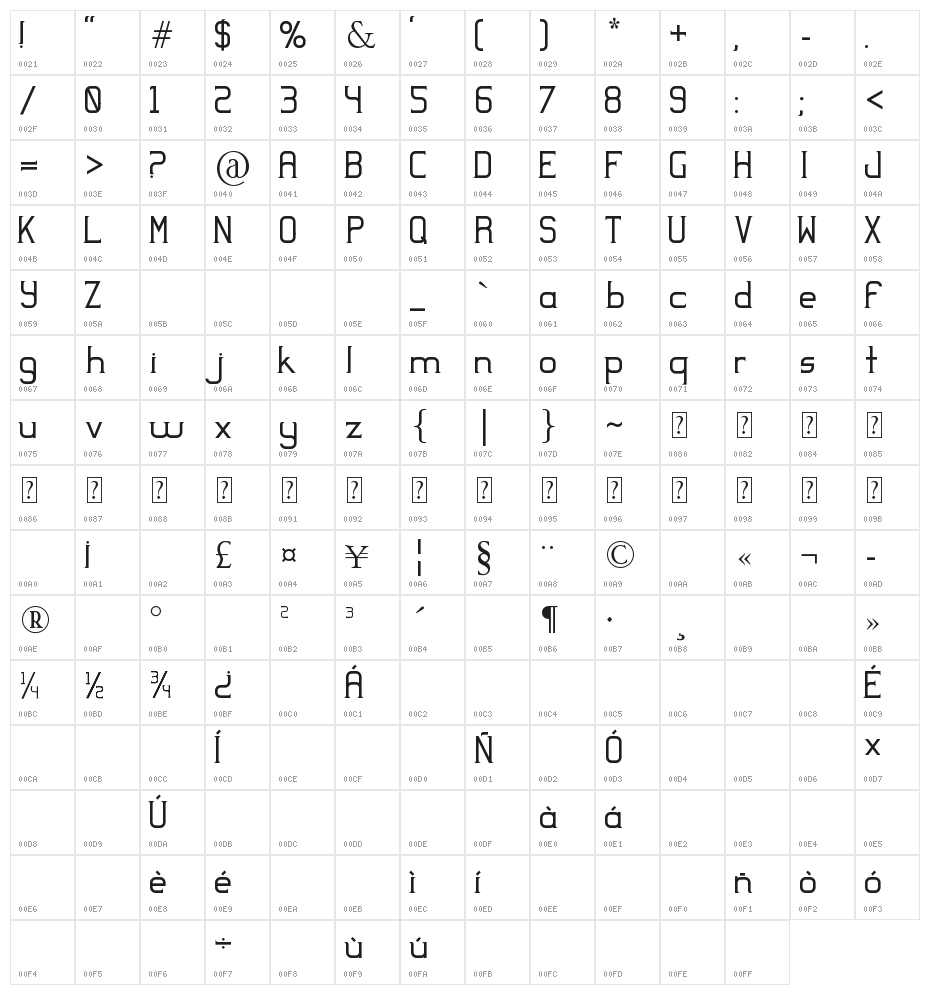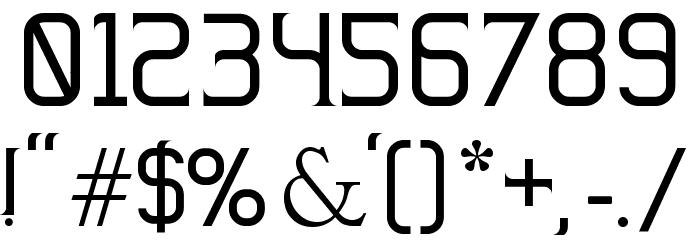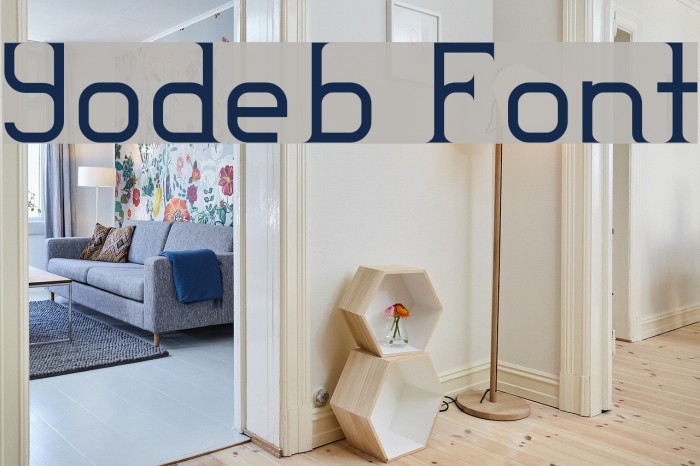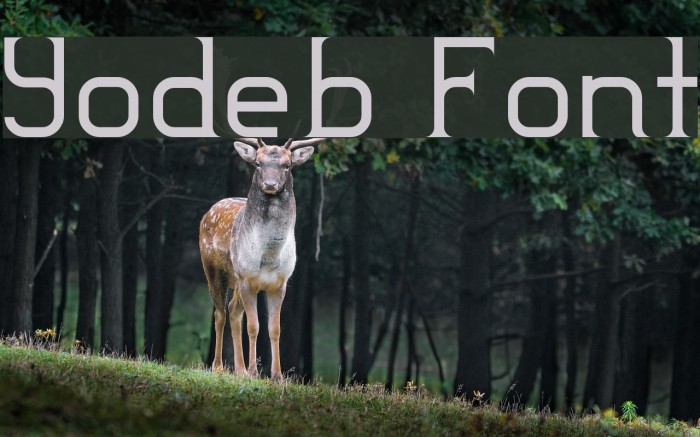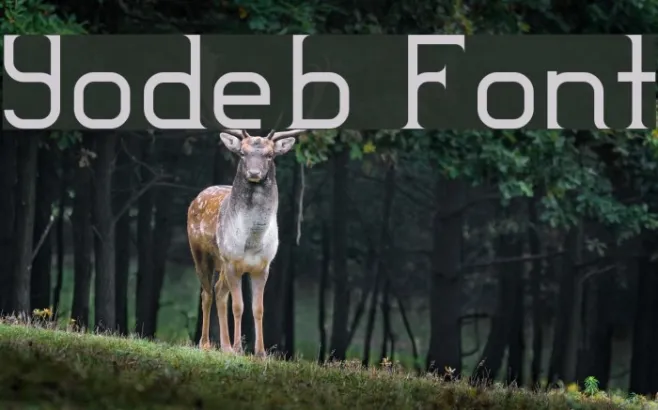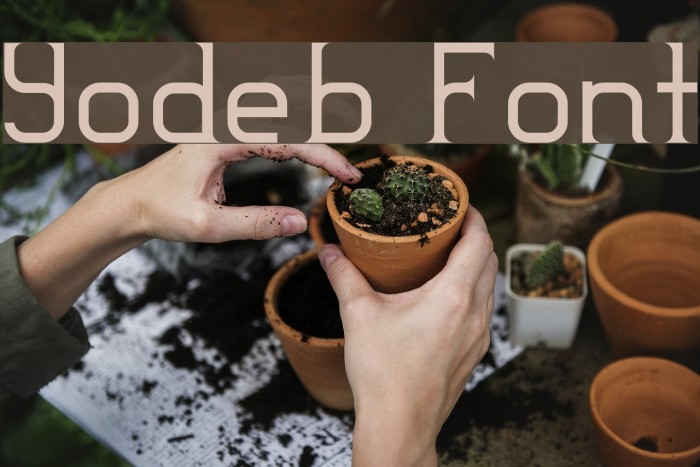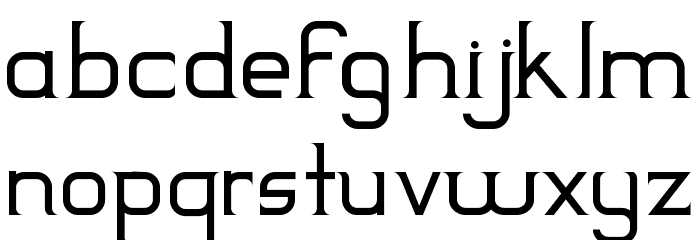
Yodeb Font
Yodeb Description
This font features a unique blend of geometric and modern elements, characterized by its clean lines and distinct angular cuts. The uppercase letters exhibit a strong presence with a slightly condensed form, while the lowercase letters maintain a harmonious balance with rounded edges and subtle curves. The numerals are bold and easily legible, making them suitable for a variety of applications. Special characters are designed with the same attention to detail, ensuring consistency throughout the typeface. The overall design is both contemporary and versatile, making it a great choice for projects that require a modern yet approachable aesthetic.